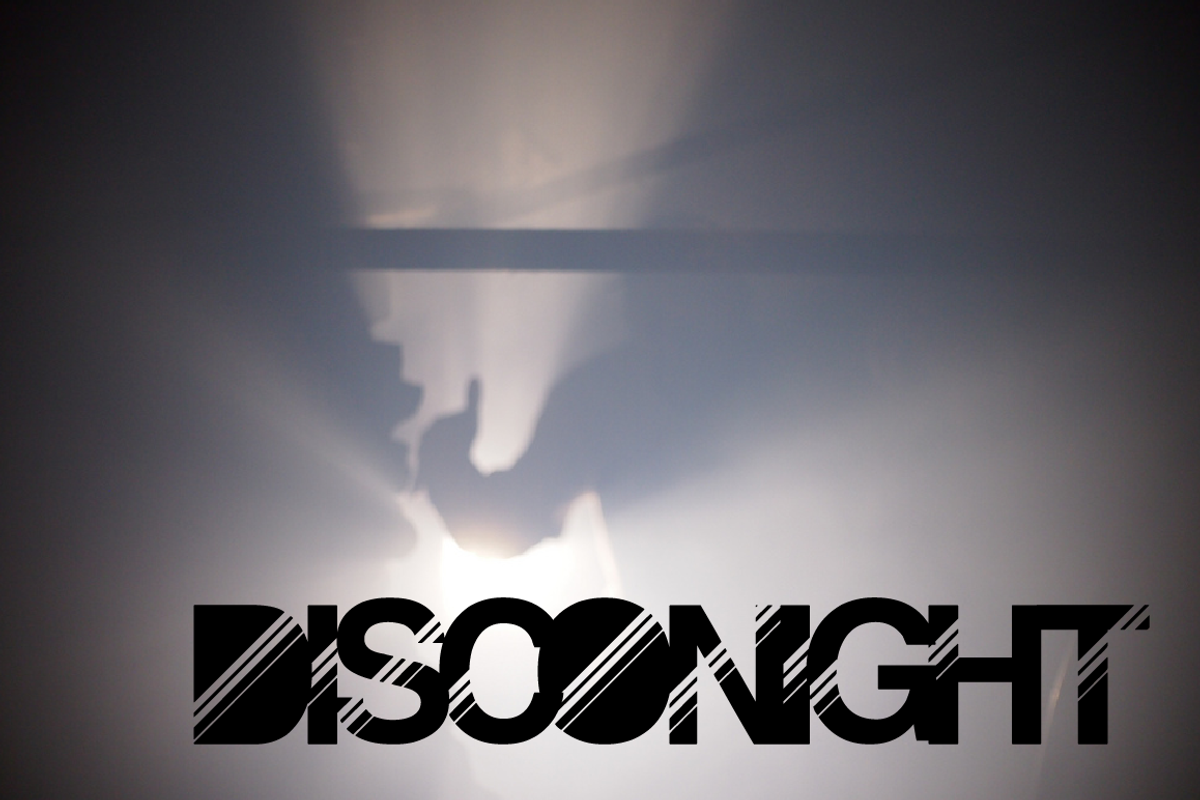
DiscoNight Font Free Download is a vibrant and energetic typeface inspired by the glitz and groove of the disco era. With its funky curves, retro flair, and bold rhythm, this font is perfect for party posters, music event flyers, vintage branding, album covers, and eye-catching social media graphics.
DiscoNight Font Free Download captures the fun and sparkle of 70s nightlife, making your designs dance with personality. Whether you're crafting a themed promotion, retro apparel design, or anything that needs a burst of rhythm and style, this font brings the boogie to your typography.
Ideal for both print and digital use, it’s a great way to make your headlines shine. Feel free to test it in personal or demo projects, but a commercial license is required for any professional application. Get your groove on and light up your designs with DiscoNight!